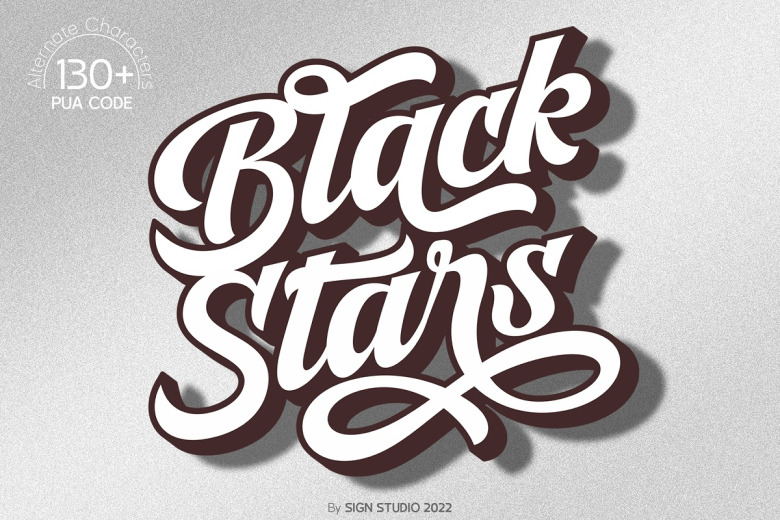
Black Stars Font
Black Stars is a clean and vintage brush handwritten font. This will get many of the alterative characters to play with (if you have Opentype capable software) a mixture of basic and ornamental which makes sure this typeface deserves attention.
Black Stars Handwritten Font